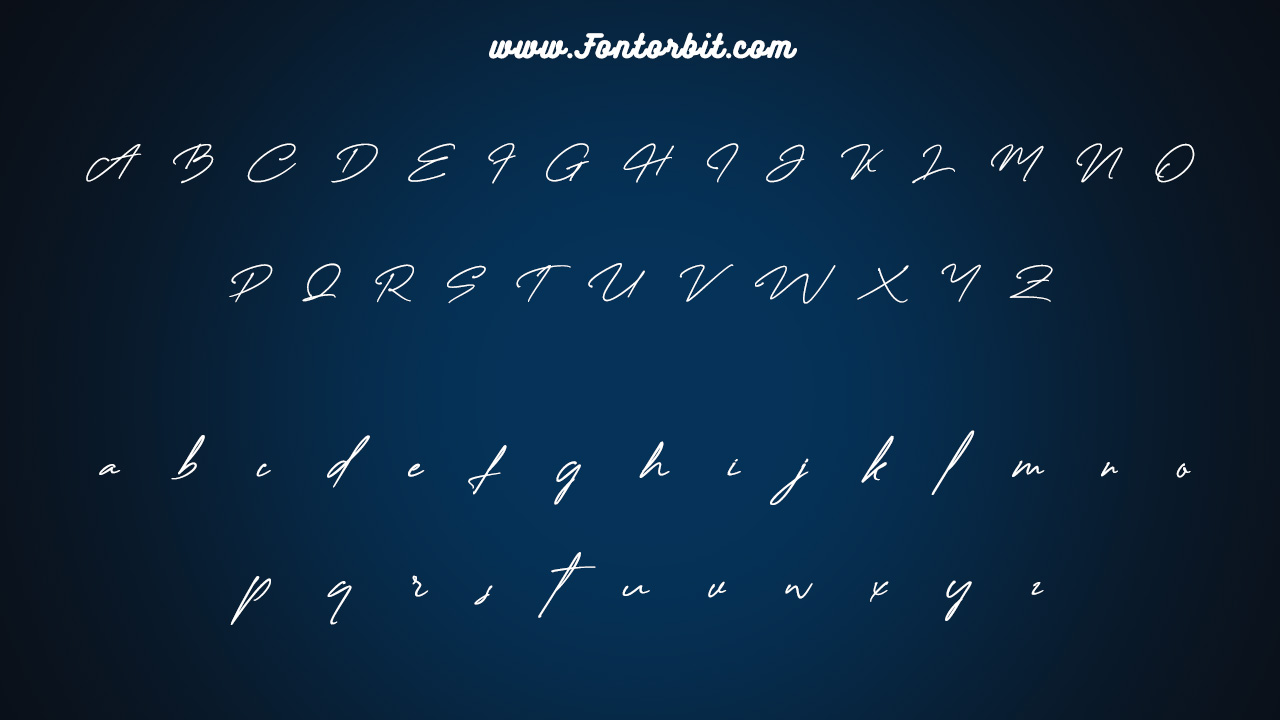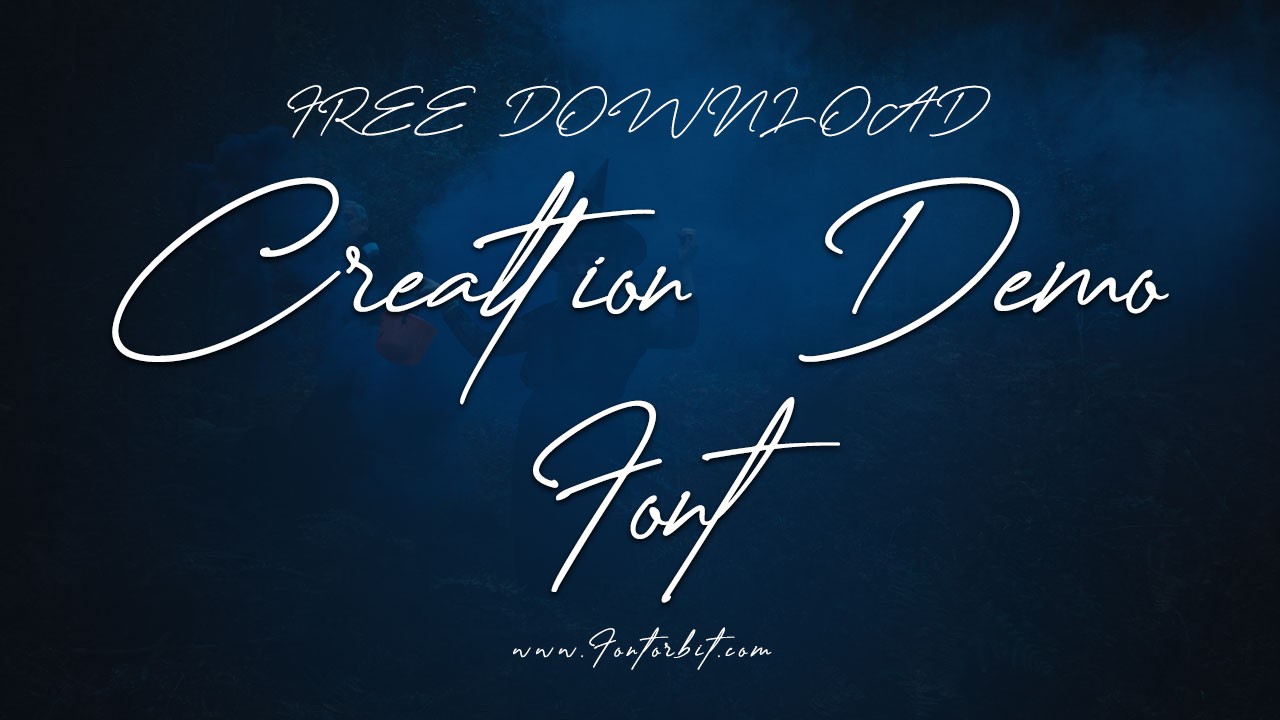
Creation Demo is a captivating display font expertly designed by Glyphstyle. This font belongs to the Script family, characterized by its fluid, cursive forms that convey elegance and sophistication. Creation Demo stands out with its modern and refined aesthetic, making it an excellent choice for a variety of design projects.
Notable Uses of Creattion Demo
The Creation Demo is ideal for occasions such as wedding invitations, modern branding projects, and stylish magazine headlines. Its elegant and sophisticated style makes it perfect for high-end and luxury-themed designs.
Use Creattion Demo for:
- Logo and brand designs
- Event invitations and greeting cards
- Promotional materials and advertisements
- Creative website headings and banners
Creattion Demo is a beautiful and versatile font that adds sophistication to your designs. Whether you’re working on a personal project or professional branding, this font provides a unique and stylish touch that can elevate any design.